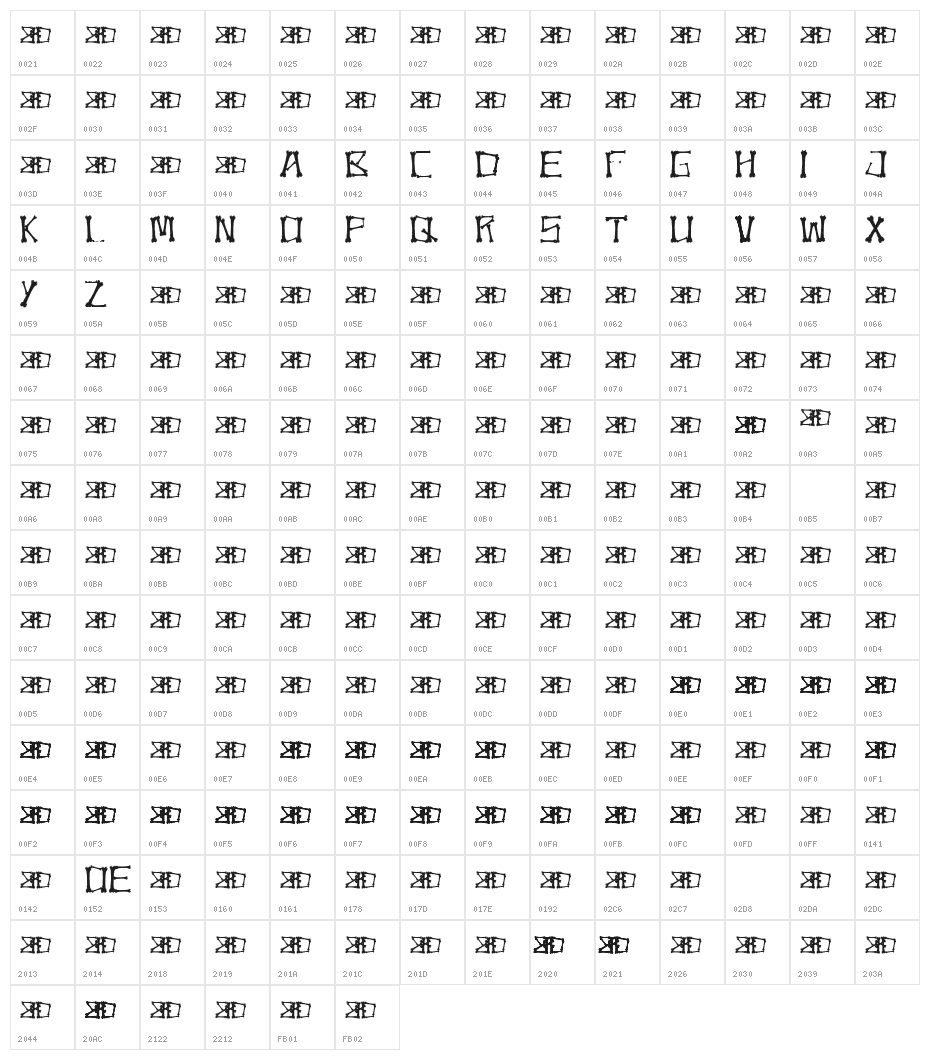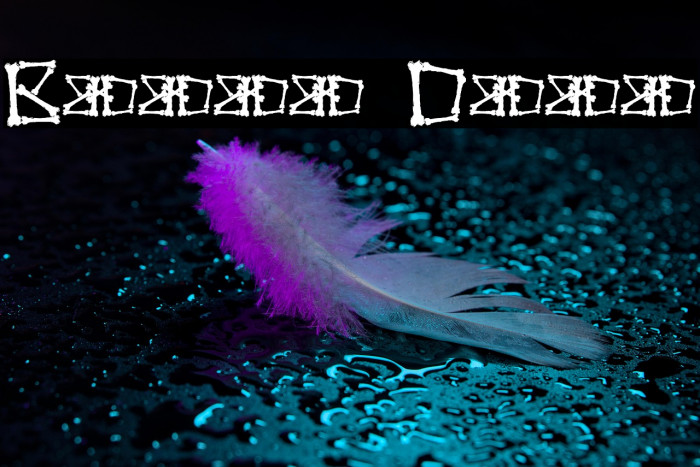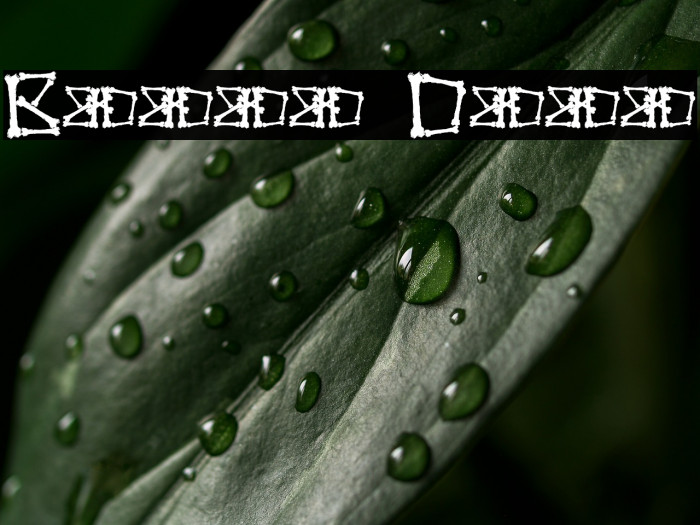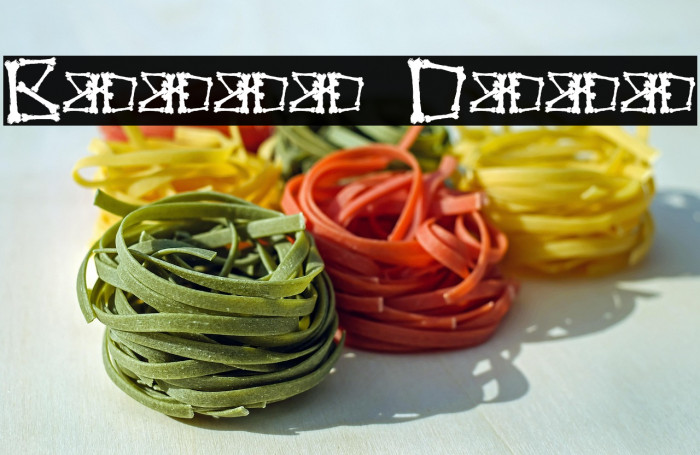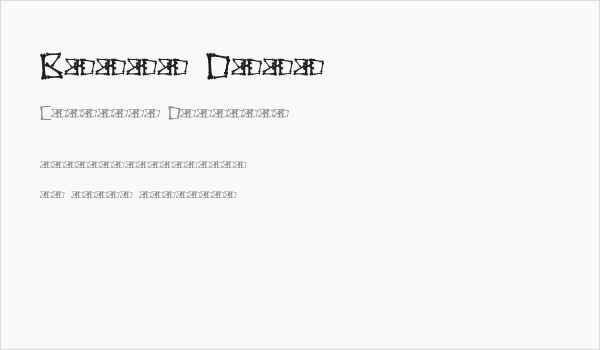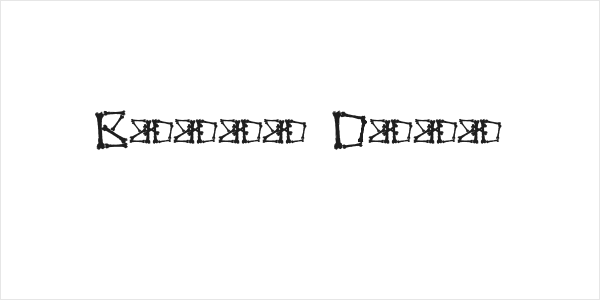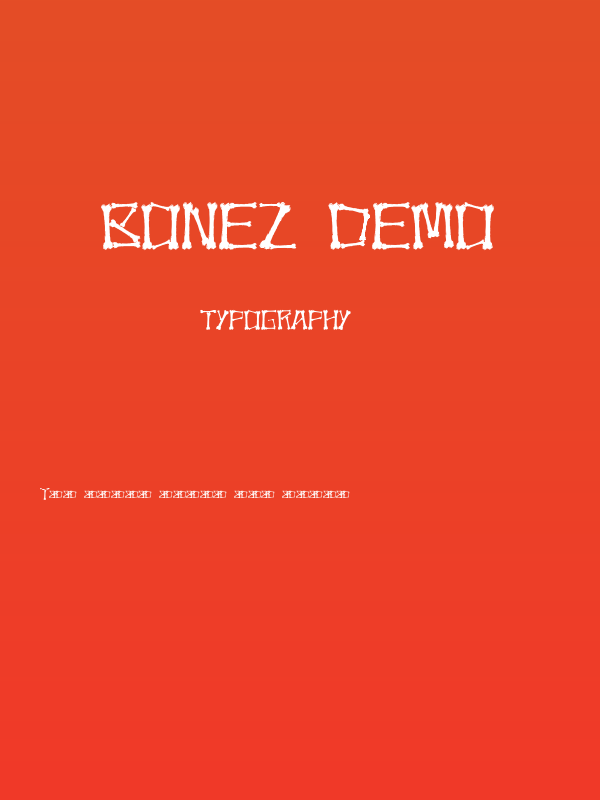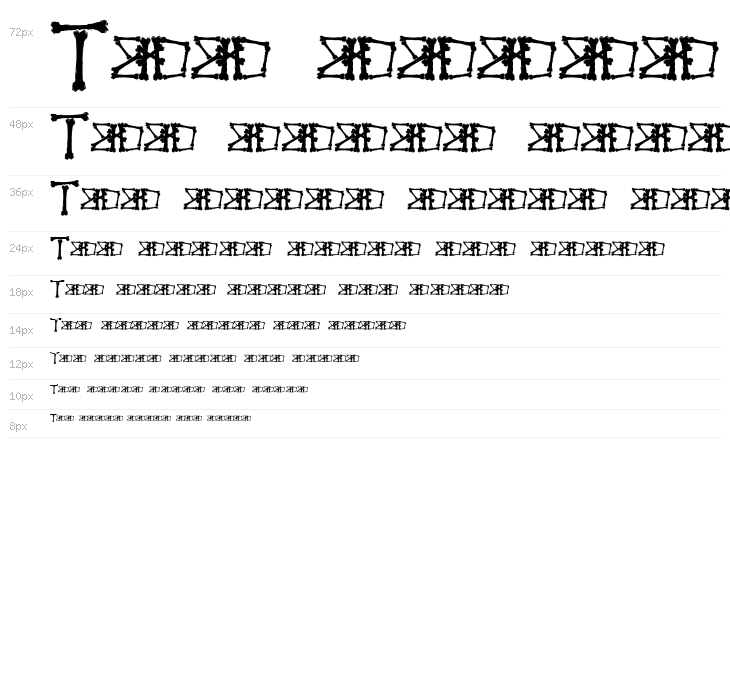
Bonez Demo Font
Bonez Demo Description
This font features a unique, skeletal design that mimics the appearance of bones. Each character is crafted to resemble a bone structure, giving it a distinct, edgy look. The uppercase letters are bold and prominent, with jagged edges that enhance the bone-like aesthetic. The font has a decorative and playful style, making it suitable for creative and thematic projects. It is particularly eye-catching and would stand out in any design that requires a touch of the macabre or a Halloween theme. The characters are evenly spaced, ensuring readability despite their intricate design.
| Proposed Projects | Ideal for Halloween-themed designs, spooky invitations, horror movie posters, and creative projects requiring a unique, edgy font. |